Lifetime Bundle Blackletter Font
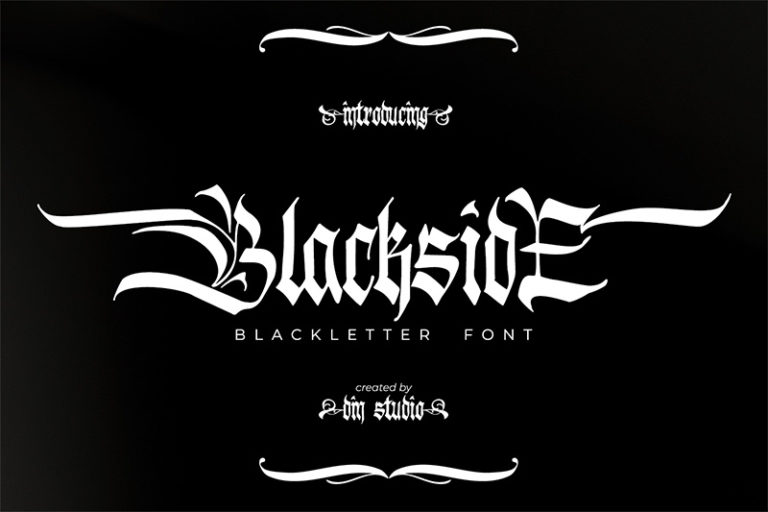
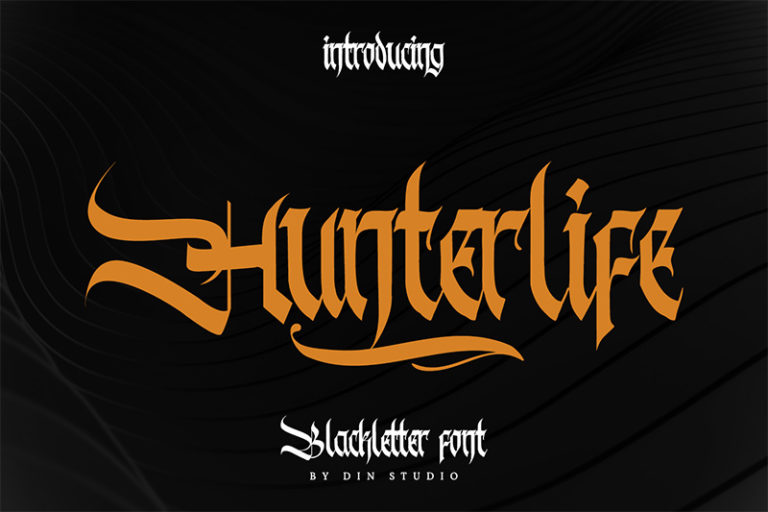
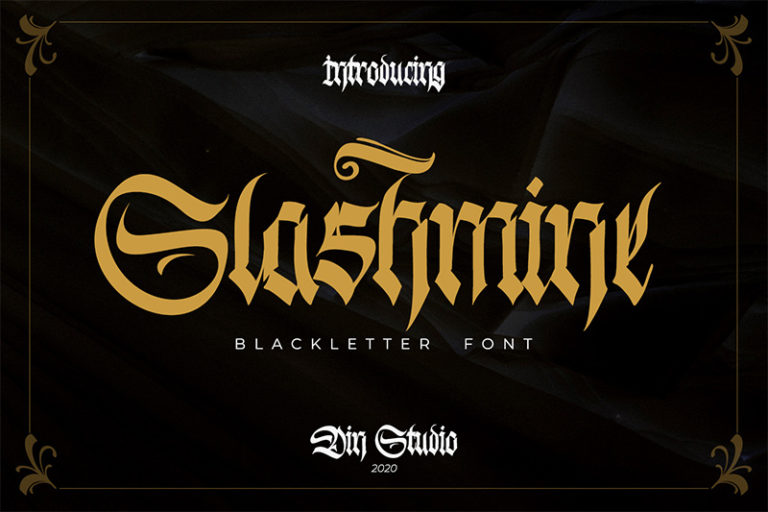
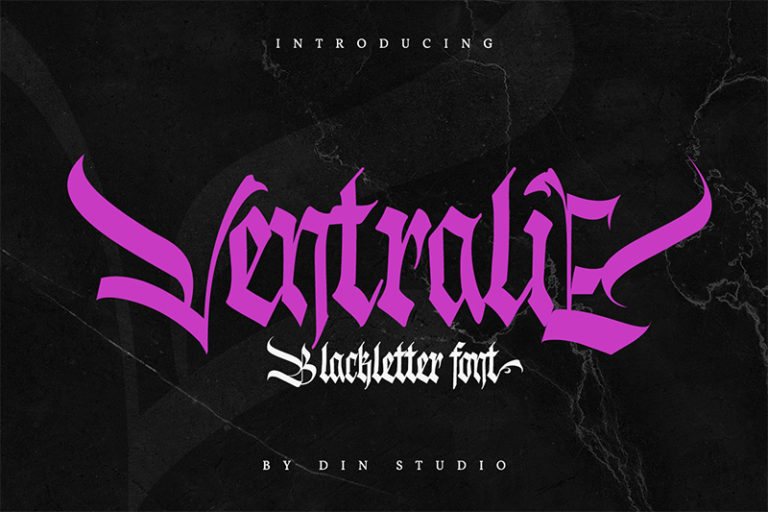
Blackside
Hello Everyone! Say hello to Lifetime Bundle Blackletter Font!
The blackletter typeface is a family font that are inspired by the dark, saturated calligraphic letters of the Middle Ages. These collection have been meticulously selected to represent the enduring beauty and artistic intricacy of blackletter typography, ensuring your designs exude tradition and grace.
With the original blackletter design in package, you will be able to create various kinds of artistic designs and can increase the value of your designs.
Lifetime Bundle Blackletter Font includes Multilingual Supports. See the previews above to get some inspiration on how you can use them.
Fonts include are :